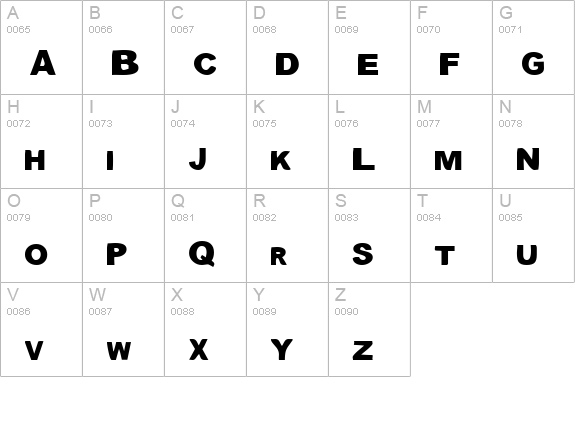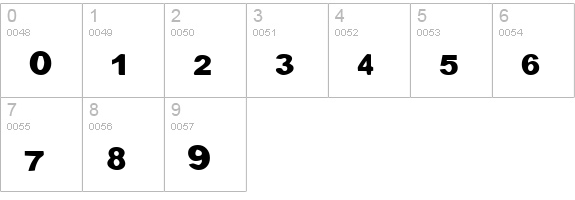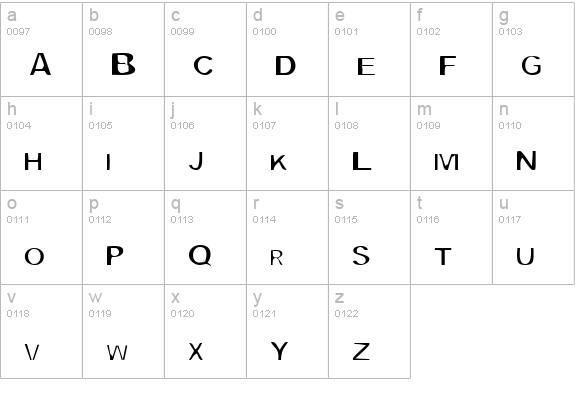
Blockquote Font Details
The Blockquote font is a stylish and eye-catching typeface that adds a touch of elegance to any design. Its clean lines and modern feel make it perfect for a wide range of projects, from websites to print materials. The Blockquote font is versatile and can be used for both headings and body text, making it a great choice for designers looking for a font that can do it all. Best of all, Blockquote is available for free download at FontsMarket.com, so you can add this sophisticated font to your collection without breaking the bank. Don't miss out on this fantastic opportunity to enhance your designs with the Blockquote font today!